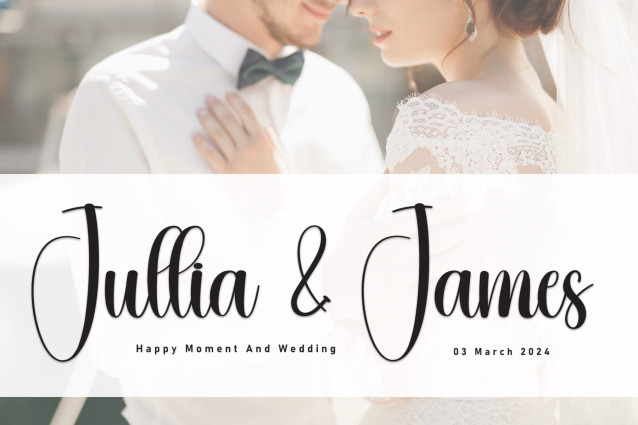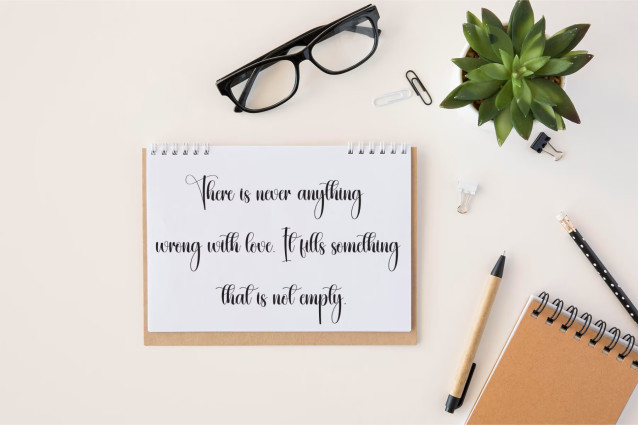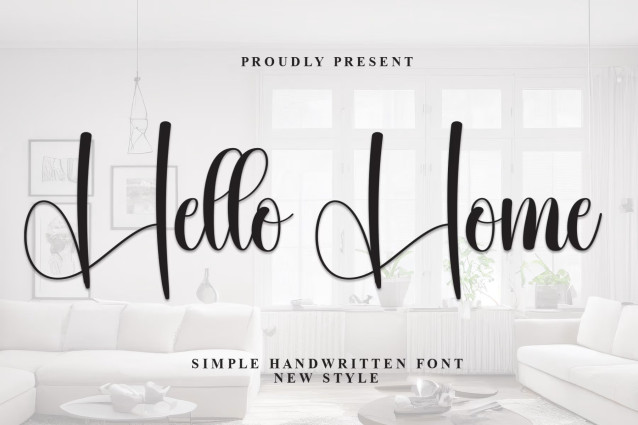
Hello Home Font – Special creative products for you, our products will give you an extraordinary experience that will not be forgotten.
A popular and professional script font. Modern and elegant, this typeface is made of beautiful creative strokes.
This font is perfect for your creative ideas, both formal and informal. It has a modern style with a touch of creative ideas that is very suitable to be applied anywhere that requires creative ideas such as invitation cards,
letterheads, website logos, social media, banners, advertisements, brochures, packaging products, leather products, and any product that requires writing.
By using this font, all of your products will look luxurious, elegant, and attractive, please try and see the results.
This font includes a complete set of beautiful upper and lowercase letters, numbers, a wide variety of punctuation marks, and ligatures. All lowercase letters include a start and end, providing a realistic style. everything you get.